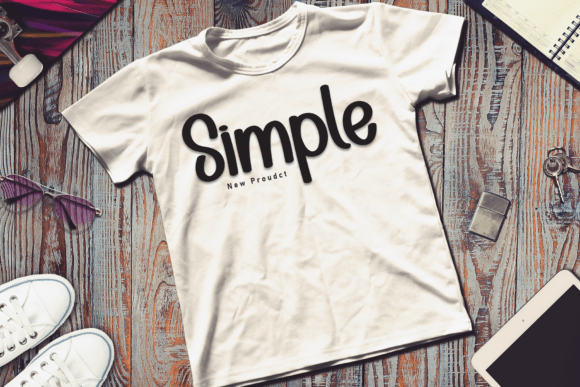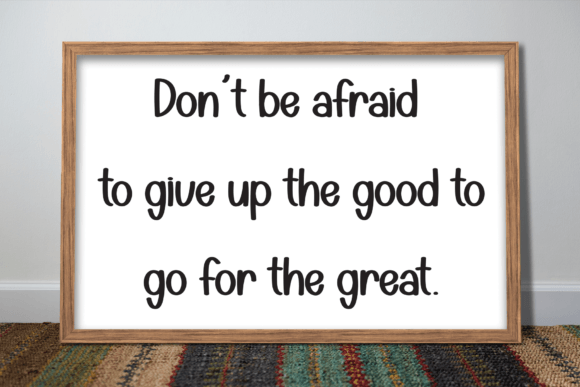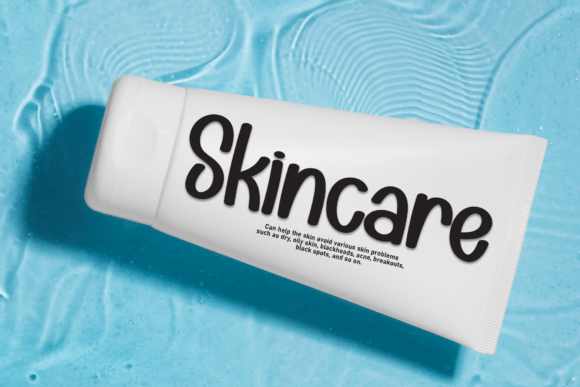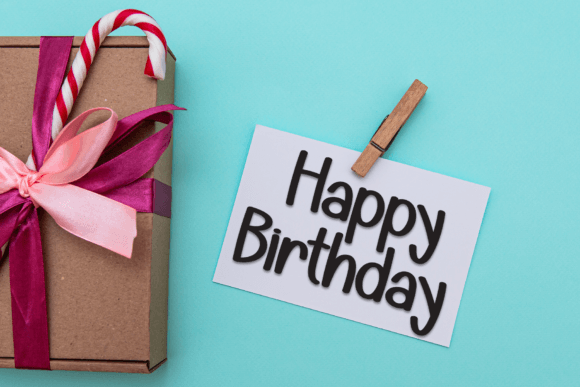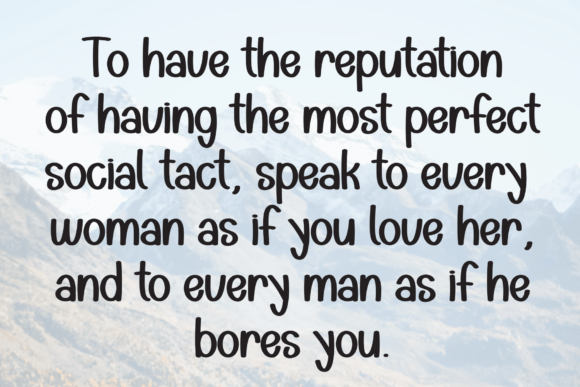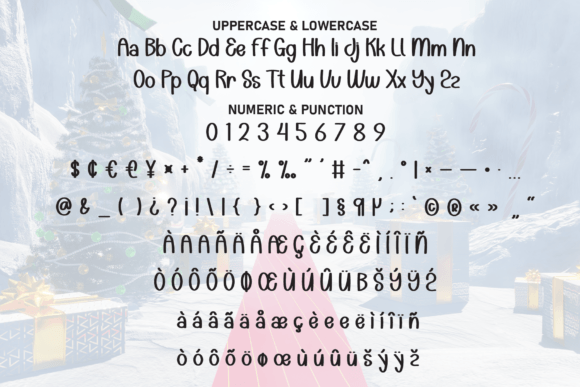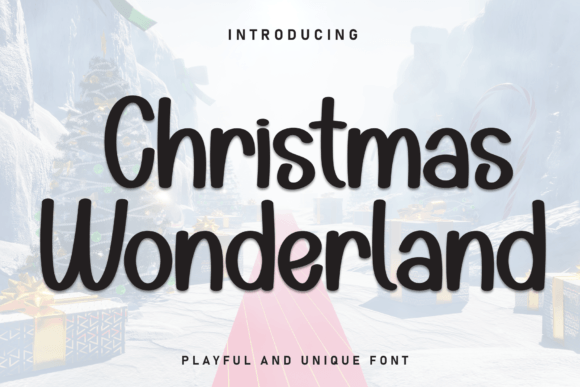
Introducing Christmas Wonderland Font: The Perfect Addition to Your Holiday Designs
Are you looking for a font that captures the essence of the holiday season? Do you want to add a touch of warmth and authenticity to your designs? Look no further than Christmas Wonderland Font, a casual handwritten font that’s perfect for creating festive and inviting designs.
What is Christmas Wonderland Font?
Christmas Wonderland Font is a beautifully crafted handwritten font that exudes a relaxed and friendly vibe. Its natural, flowing strokes give it a effortless and charming touch that’s ideal for a variety of design projects. Whether you’re working on personal projects, social media graphics, or invitations, this font is sure to bring a smile to your audience’s faces.
Characteristics of Christmas Wonderland Font
So, what makes Christmas Wonderland Font so special? Here are just a few of its key characteristics:
- Casual and handwritten: Christmas Wonderland Font has a beautifully imperfect, handwritten feel that’s perfect for creating designs that feel personal and approachable.
- Natural and flowing strokes: The font’s strokes are smooth and flowing, giving it a sense of movement and energy.
- Relaxed and friendly vibe: Christmas Wonderland Font has a warm and inviting personality that’s perfect for creating designs that feel festive and fun.
- Easygoing style: The font’s easygoing style makes it perfect for designs that need to feel effortless and charming.
Uses for Christmas Wonderland Font
Christmas Wonderland Font is a versatile font that can be used for a wide range of design projects. Here are just a few ideas to get you started:
- Personal projects: Use Christmas Wonderland Font to create festive holiday cards, gift tags, and decorations that feel personal and special.
- Social media: Add a touch of holiday cheer to your social media graphics with Christmas Wonderland Font. It’s perfect for creating festive Facebook posts, Instagram stories, and Twitter headers.
- Invitations: Create beautiful and inviting holiday invitations with Christmas Wonderland Font. It’s perfect for baby showers, holiday parties, and other festive events.
- Digital products: Use Christmas Wonderland Font to create digital products like holiday planners, journals, and printables that feel festive and fun.
Tips for Using Christmas Wonderland Font
Here are a few tips for getting the most out of Christmas Wonderland Font:
- Pair it with bold fonts: Christmas Wonderland Font pairs beautifully with bold fonts. Try pairing it with a bold sans-serif font for a fun and festive look.
- Use it for headings: Christmas Wonderland Font is perfect for headings and titles. Use it to add a touch of holiday cheer to your designs.
- Experiment with colors: Christmas Wonderland Font looks great in a variety of colors. Try experimenting with different colors to find the perfect look for your design.
Christmas Wonderland Font is a beautiful and versatile font that’s perfect for adding a touch of holiday cheer to your designs. Its casual, handwritten feel and natural, flowing strokes make it ideal for creating festive and inviting designs. Whether you’re working on personal projects, social media graphics, or invitations, Christmas Wonderland Font is sure to bring a smile to your audience’s faces. So why wait? Download Christmas Wonderland Font today and start creating your own festive and fun designs!